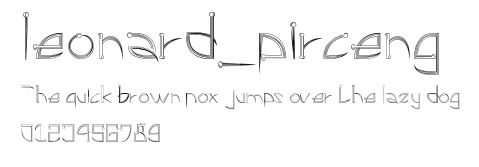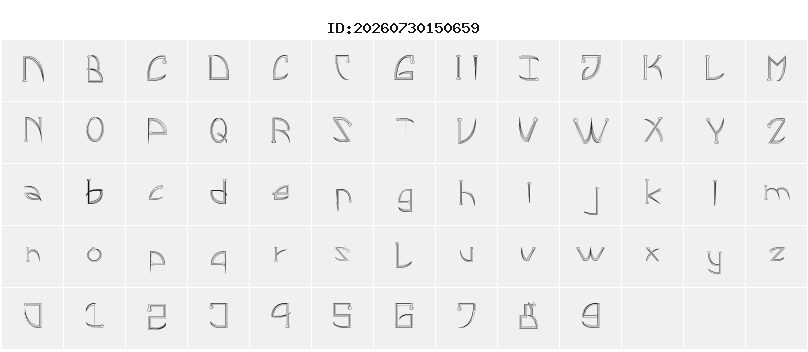
leonard_pirceng Preview
• Font Name: leonard_pirceng
• Font ID: leonard_pirceng:Version 1.00
• Full Font Name: leonard_pirceng
• Version: Version 1.00 October 5, 2011, initial release
• PostScript Name: leonard_pirceng
About leonard_pirceng.ttf
leonard_pirceng.ttf is a modern, elegant sans-serif font designed for ultimate readability and visual harmony. Perfect for branding, headlines, web design, and print materials.